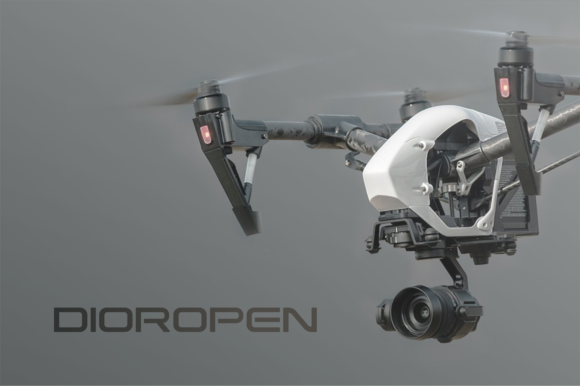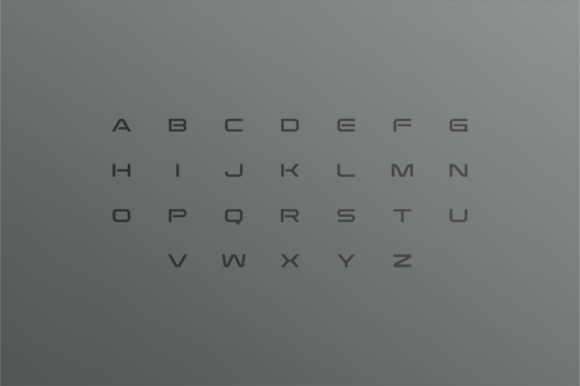
Dioropen Font: Elevate Your Designs with a Modern, Elegant, and Futuristic Touch
In the world of typography, fonts play a crucial role in conveying the tone and personality of a design. For designers and crafters looking to add a unique touch to their work, Dioropen Font is an excellent choice. This modern, elegant, and futuristic display font is perfect for a wide range of applications, from web designs and business cards to branding and advertising materials.
What Makes Dioropen Font Stand Out?
Dioropen Font boasts a sleek and sophisticated design, characterized by clean lines, precise curves, and a futuristic feel. Its modern aesthetic makes it an ideal choice for designers who want to create a lasting impression. The font’s elegance is evident in its refined letterforms, which exude a sense of luxury and high-end quality.
One of the key features that sets Dioropen Font apart is its versatility. This display font can be used in a variety of contexts, from digital designs to print materials. Whether you’re creating a website, a business card, or a brochure, Dioropen Font is sure to make your design stand out.
Key Features of Dioropen Font
• Modern and Elegant Design: Dioropen Font features a sleek and sophisticated design that’s perfect for creating modern and elegant designs.
• Futuristic Feel: The font’s futuristic feel makes it ideal for designs that require a cutting-edge look.
• Clean Lines and Precise Curves: The font’s clean lines and precise curves ensure that it looks great in both digital and print formats.
• Versatile: Dioropen Font can be used in a wide range of applications, from web designs to print materials.
Use Cases for Dioropen Font
Dioropen Font is a versatile font that can be used in a variety of contexts. Here are some use cases where this font excels:
• Web Design: Use Dioropen Font to create modern and elegant website headers, titles, and captions.
• Business Cards: Add a touch of sophistication to your business cards with Dioropen Font.
• Branding and Advertising: Use Dioropen Font to create eye-catching logos, posters, and advertisements.
• Print Materials: Dioropen Font is perfect for creating brochures, flyers, and other print materials that require a modern and elegant look.
Tips for Using Dioropen Font
• Use it Sparingly: Dioropen Font is a display font, so use it sparingly to create emphasis and add visual interest to your design.
• Pair it with a Simple Font: Pair Dioropen Font with a simple font to create contrast and add visual hierarchy to your design.
• Experiment with Colors: Dioropen Font looks great in a variety of colors, so experiment with different colors to find the one that works best for your design.
Dioropen Font is a modern, elegant, and futuristic display font that’s perfect for designers and crafters looking to add a unique touch to their work. Its versatility, clean design, and precise curves make it an excellent choice for a wide range of applications. By following the tips outlined above, you can get the most out of Dioropen Font and create stunning designs that leave a lasting impression.